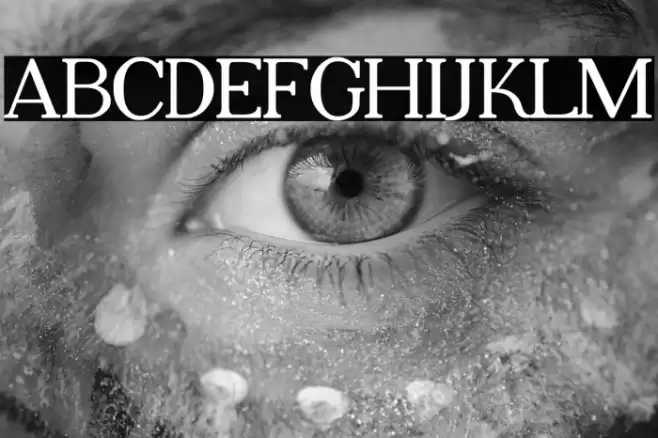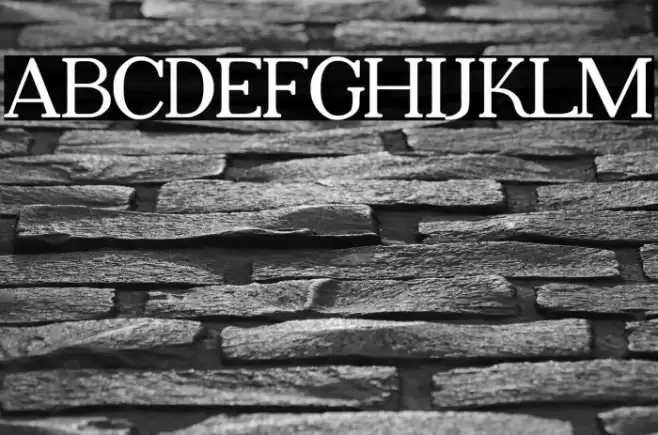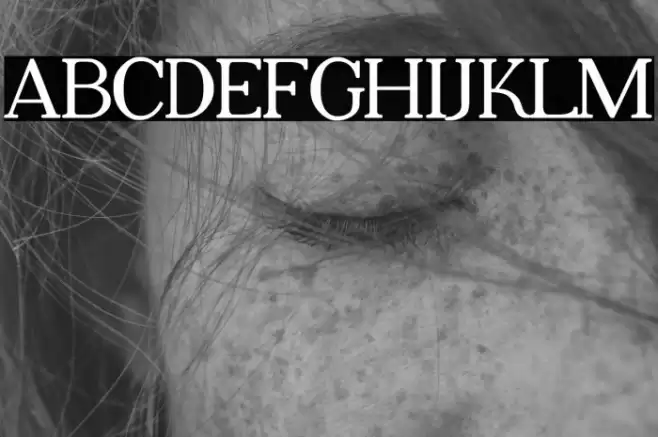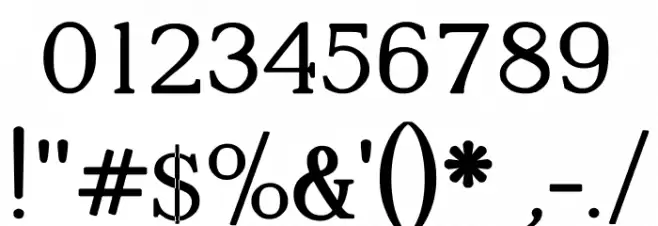
Adega Serif Bold Font
Adega Serif Bold Description
This font features a classic serif style with bold, prominent strokes that give it a strong and authoritative presence. The uppercase letters are tall and elegant, while the lowercase letters maintain a consistent and harmonious flow. The numerals are clear and well-defined, making them easily readable. Special characters are designed with the same attention to detail, ensuring they integrate seamlessly with the rest of the typeface. The overall design is balanced, with a slight emphasis on vertical strokes, providing a traditional yet modern appeal.
A bold serif font with strong, elegant strokes and a classic appearance from Uncategorized fonts.
- Font: Adega Serif Bold
- Proposed Projects: Ideal for book covers, editorial design, branding projects, and formal invitations.
- Overall Style: Classic
- Use Case: Headlines, Body text, Logos
Adega Serif Bold UPPERCASE
Adega Serif Bold LOWERCASE
Adega Serif Bold OTHER CHARS